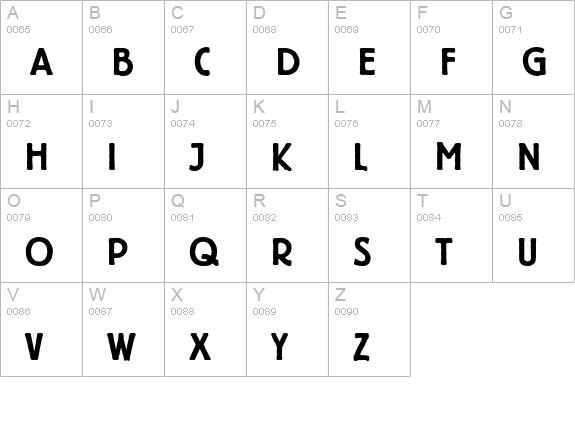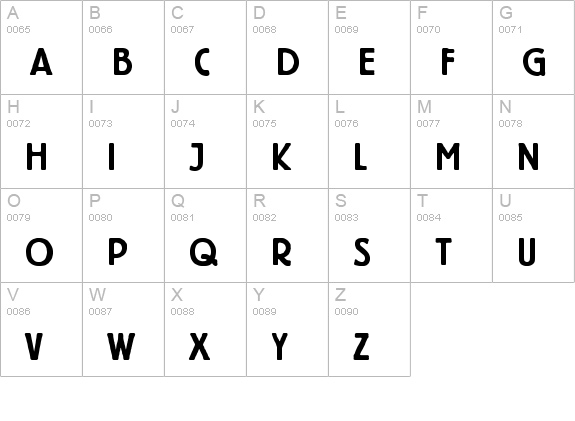
Berliner Grotesk D Demi Bold Font Details
Berliner Grotesk D Demi Bold is a sub-bold, structured variant in the Berliner typeface family \xE2\x80\x94 well suited to sub-headlines and emphasised passages.
Berlin Grotesk D Demi Bold is a sleek and modern sans-serif font that exudes strength and confidence. With its bold weight and clean lines, this typeface is perfect for making a bold statement in your designs. Whether you're working on a poster, logo, or website, Berlin Grotesk D Demi Bold will help you grab attention and make a lasting impression. The best part? This versatile font is available for free download at FontsMarket.com. Now you can add a touch of sophistication and professionalism to your projects without breaking the bank. Don't miss out on the opportunity to elevate your design work with Berlin Grotesk D Demi Bold - download it today and start creating eye-catching designs that stand out from the crowd.